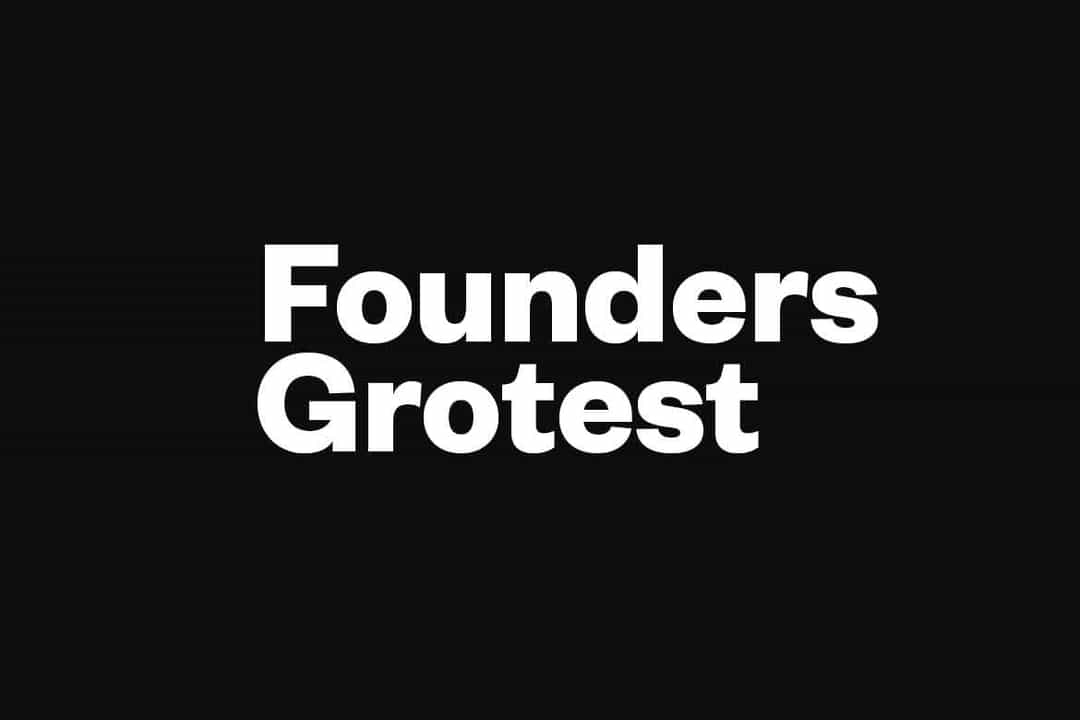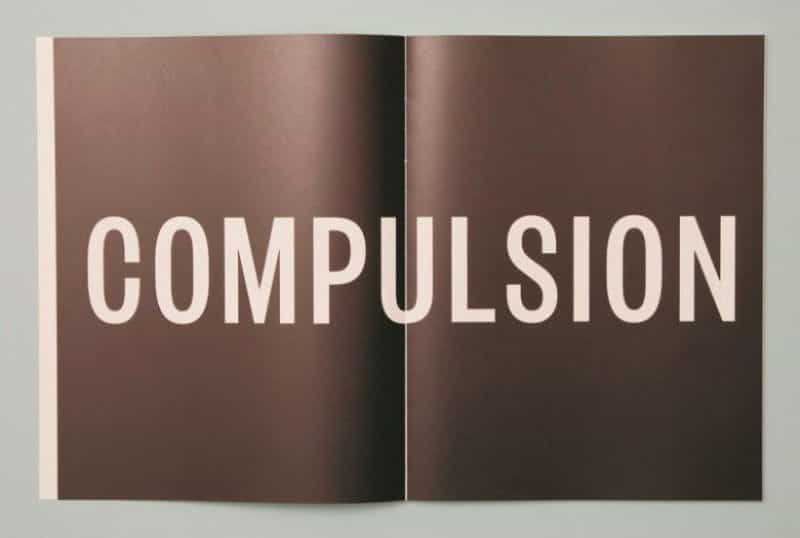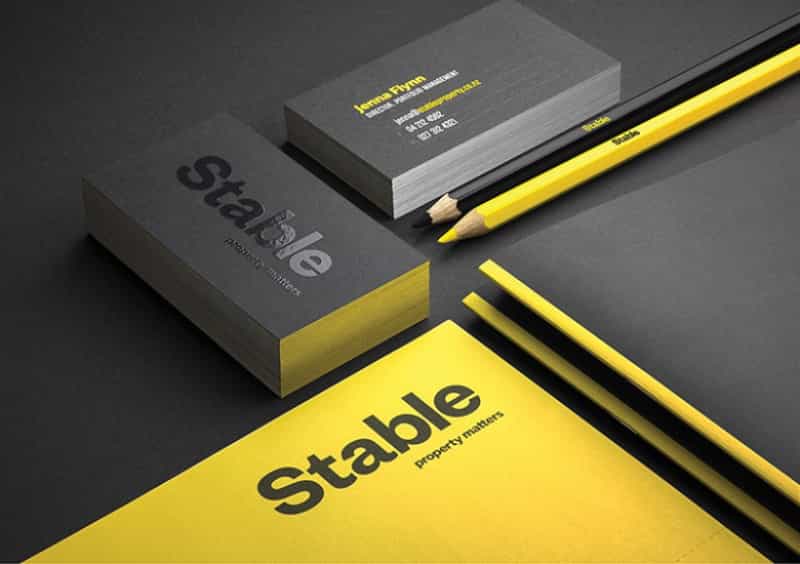
Kris Sowersby of Klim Type Foundry in New Zealand created the Founders Grotesk Font Family as a Grotesque sans serif typeface inspired by classic Grotesques from early 20th Century; version C design features include its narrow aperture.